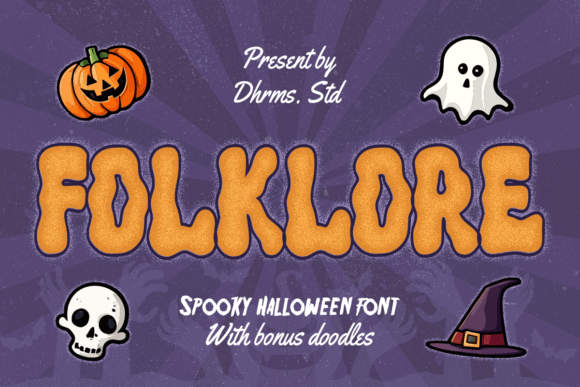
Unleash your creativity with Folklore, the display font that's sure to cast a spell on your designs. This all-caps font, designed by the talented Dharmas Studio, oozes spooky, ghoulish charm that's perfect for creating enchanting invitations, posters, apparel, and branding that's sure to make a lasting impression.
Folklore's playful, textured style adds a touch of whimsy and intrigue to any project. Its unique character set, featuring slightly distressed edges and a playful, speckled texture, gives your designs an authentic, hand-crafted feel. Whether you're a seasoned designer or just starting out, Folklore's user-friendly format makes it easy to incorporate into your projects.
With Folklore, the possibilities are endless. Create eye-catching posters and flyers that transport your audience to a world of mystery and magic. Design unique logos and branding elements that capture the essence of your brand's personality. Craft fashion-forward apparel and accessories that showcase your individuality and style.
Imagine the excitement of seeing your designs come to life, with Folklore's enchanting characters adding a touch of magic to every word. Your projects will stand out from the crowd, captivating your audience with their captivating beauty.